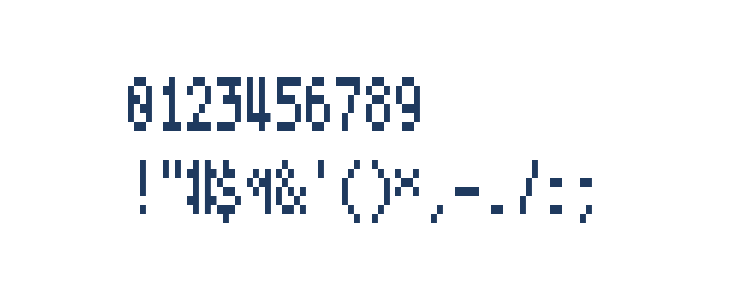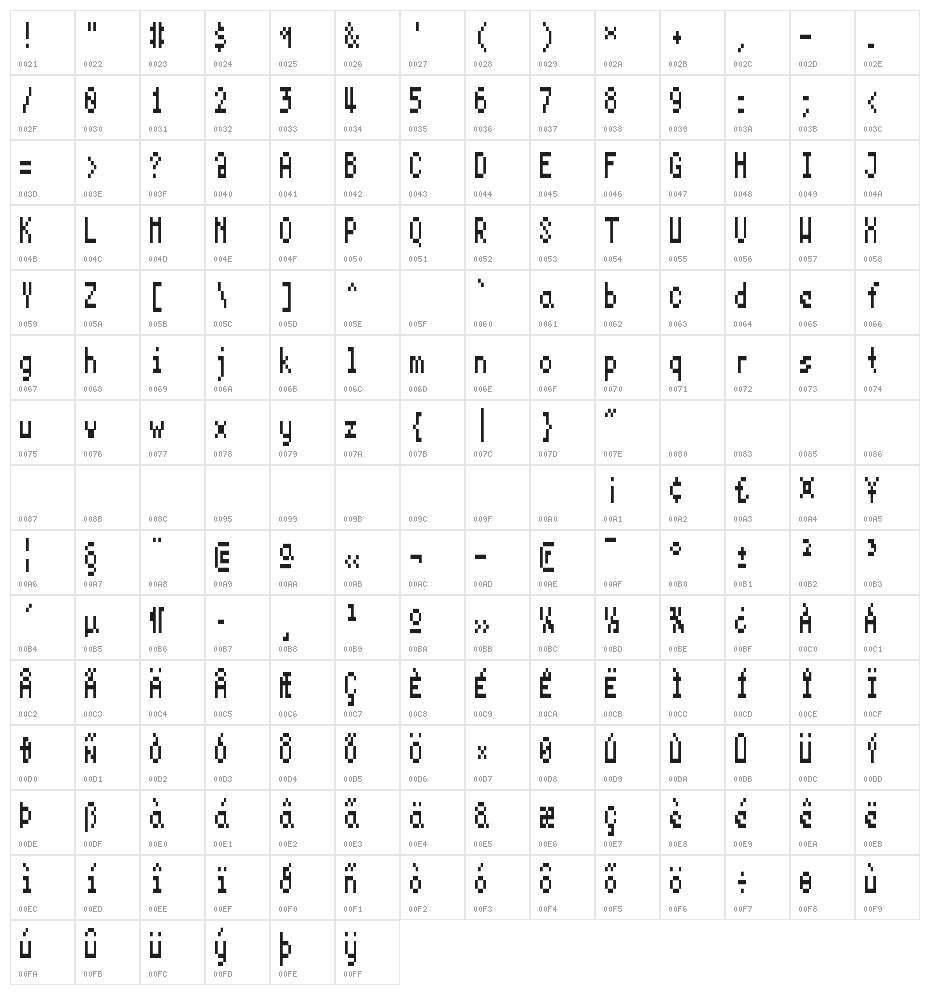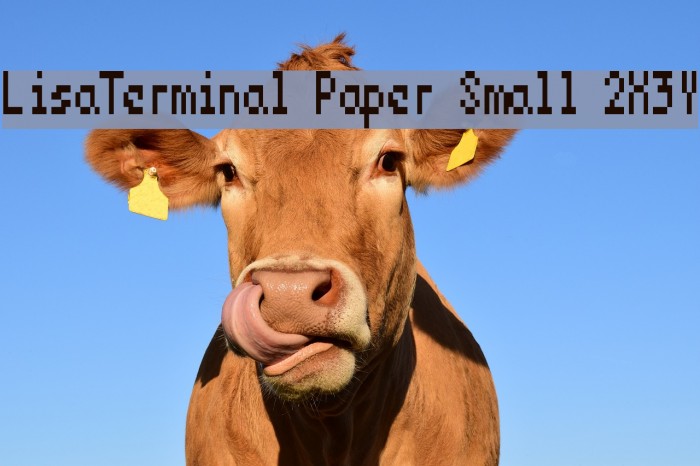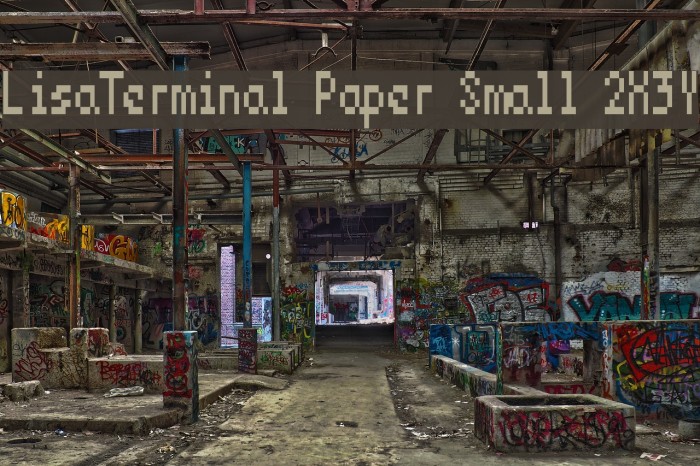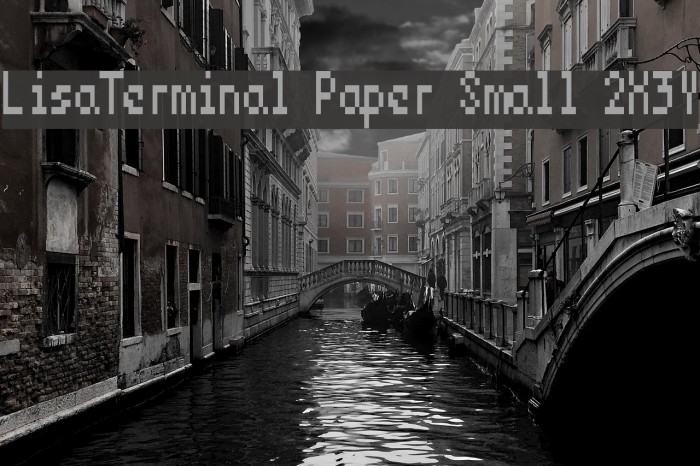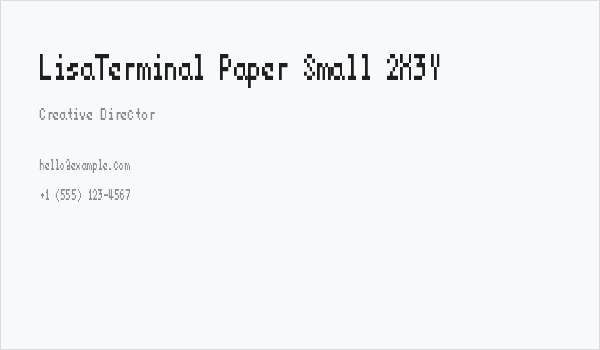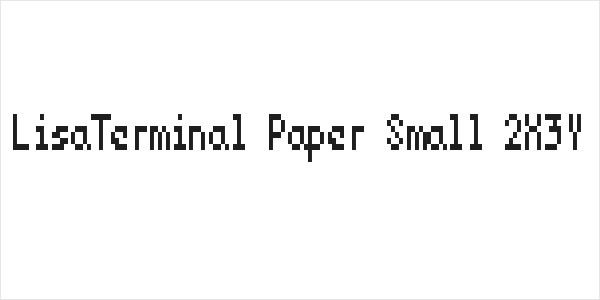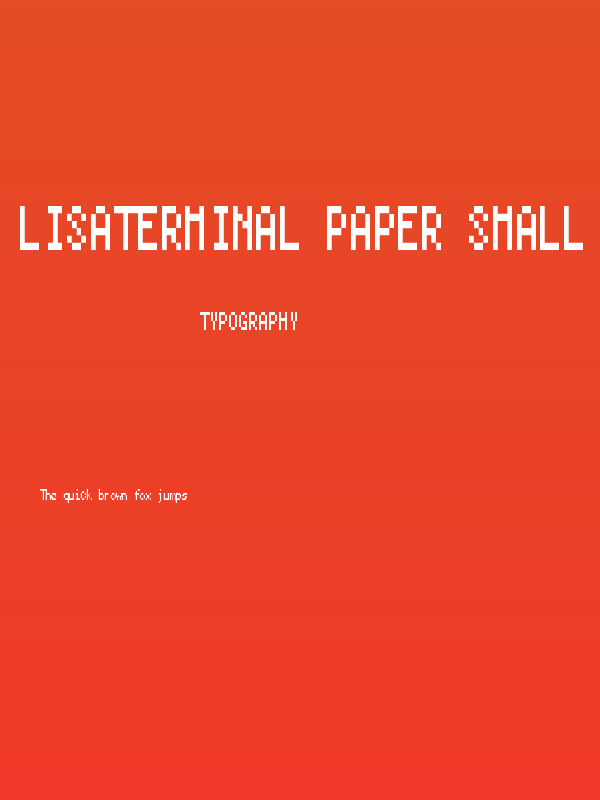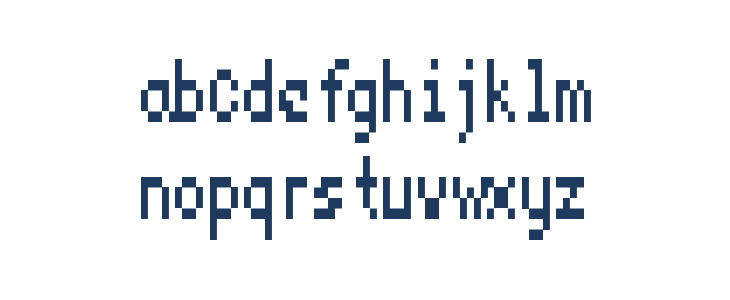
LisaTerminal Paper Small 2X3Y Font
LisaTerminal Paper Small 2X3Y Description
This font features a pixelated, monospaced design reminiscent of early computer displays and dot matrix printers. Each character is composed of a grid of square pixels, giving it a distinctly retro and digital appearance. The uniformity in character width ensures a consistent and orderly look, ideal for technical or nostalgic themes. The uppercase and lowercase letters maintain a similar height, enhancing readability in small sizes. The numerals and special characters are crafted with the same pixelated precision, making them easily distinguishable.
| Use Case | Headlines, Coding, Digital Art |
| Proposed Projects | Ideal for retro-themed designs, coding environments, digital art projects, and video game interfaces. |